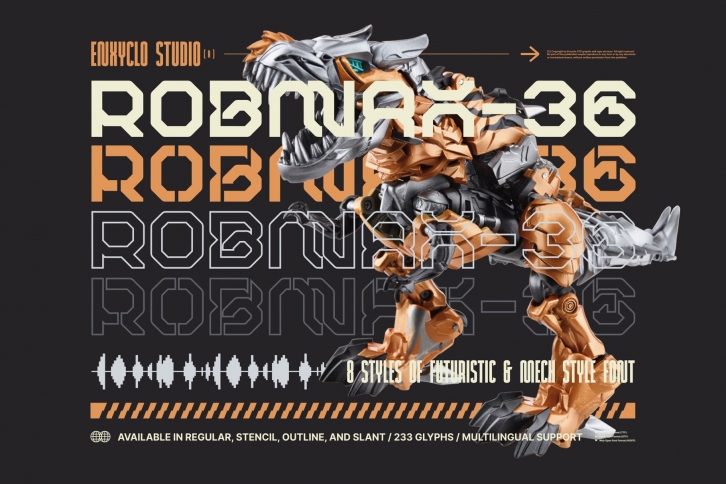
ROBMAX36 is a great font that was designed by Enxyclo. Imagine the amount of combinations you can create using this font! The archive is 4.90 MB and it was released on August 30, 2022. ROBMAX36 looks beautiful on wedding invitations, greeting cards, logos, posters, labels, t-shirt designs, logos, business cards and is perfect for use in ink or watercolor works, fashion, magazines, packaging and food menus, children's books and more!